Height
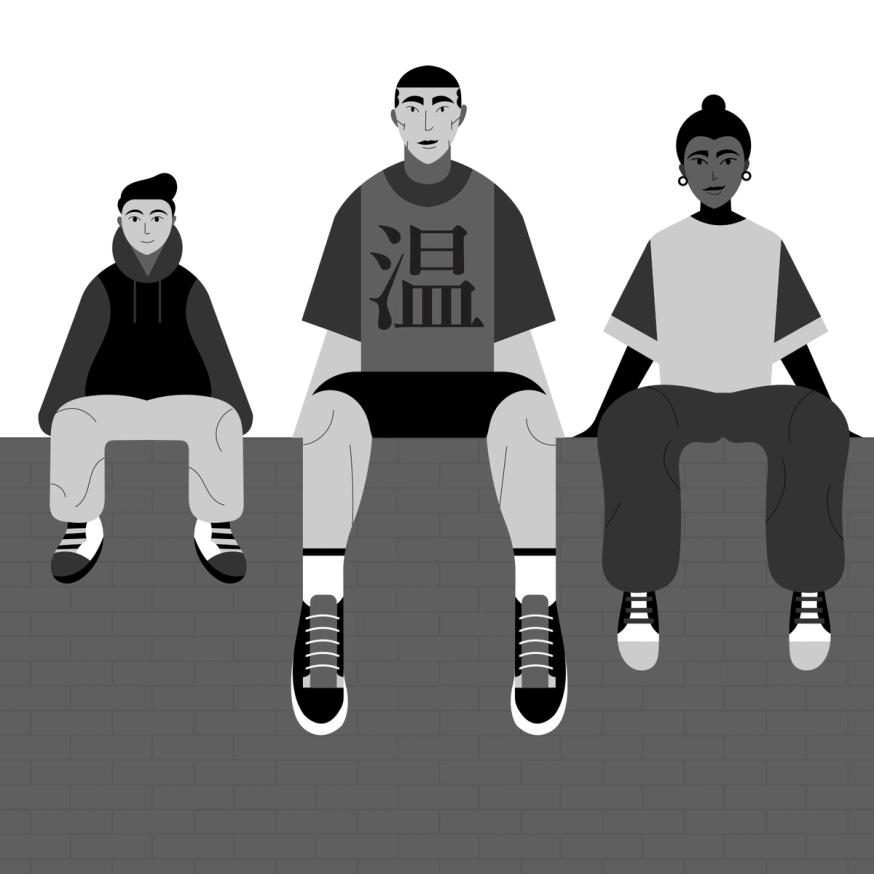
In type design, height refers to vertical measurements used as guidelines for different categories of glyphs (such as uppercases, lowercases, small caps, etc.). These are measured from the baseline and help ensure visual consistency across the typeface.
LCG (LATIN, CYRILLIC, GREEK)
LCG scripts typically use the following height guidelines for their lowercases, uppercases, and small caps:
• x-height: height of short lowercases;
• ascender height: height of the extension of lowercase letters that rise above the x-height;
• descender height: height of the extension of lowercase letters that fall below the baseline;
• cap height: height of uppercase letters;
• small case height: heigh of the small cases;
• sometimes also specific figure heights too (for old style or proportional figures, and more).
CJK (CHINESE, JAPANESE, KOREAN)
Characters of CJK scripts are commonly designed to fit within a common em-square (same width and/or height) for all characters within the same typeface. Designers often define:
• ideographic em height: total vertical space for a character;
• baseline offset: vertical alignment for mixed-script texts.
ARABIC SCRIPTS
Arabic scripts have various types of heights measurements depending on the style involved, including some that don’t follow the same rule as Latin script, where the “horizontal” baseline may not be exactly the same word to word when the letters are typed into texts. But in general, we can list down the following:
• baseline: anchors the “horizontal” alignment;
• median line: main body height;
• ascender and descender lines: based on the tallest and lowest glyph strokes;
• mark height: guides the placement of diacritics.
INDIC SCRIPTS
The following are the most common height measurements for Indic scripts (which encompasses a large number of different scripts!):
• shirorekha (headline): the horizontal bar on top of many letters;
• base height: where the main glyph body sits;
• matra height: position for vowel signs and marks above or below the base glyph.
Note: These design heights relate to glyphs’ outlines, and are not to be confused with vertical metrics, which define the overall line spacing in a font.
FONT ENGINEERING ADVICE
The x-height and the cap-height are important values that can be found in the OS/2 table of the font file.